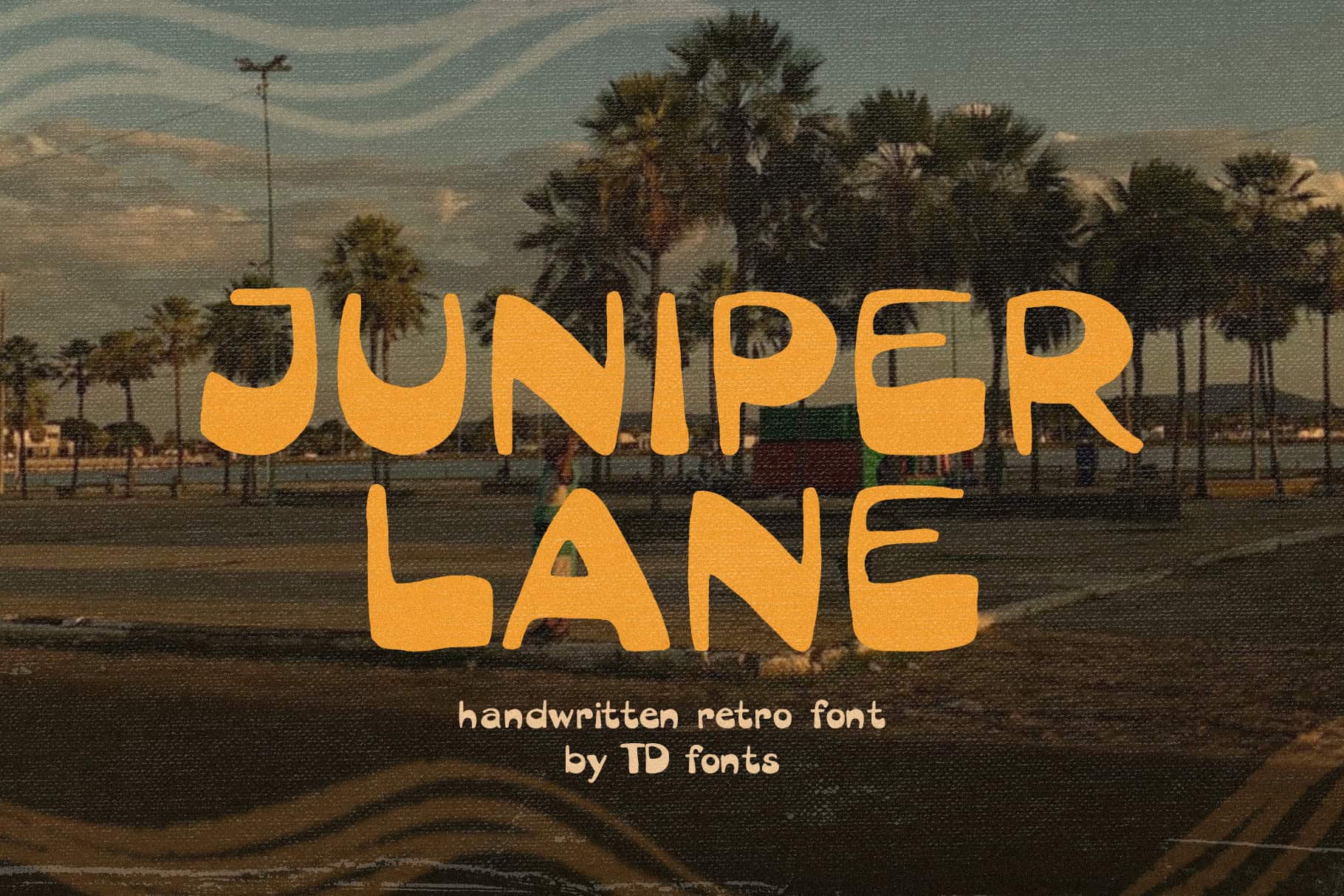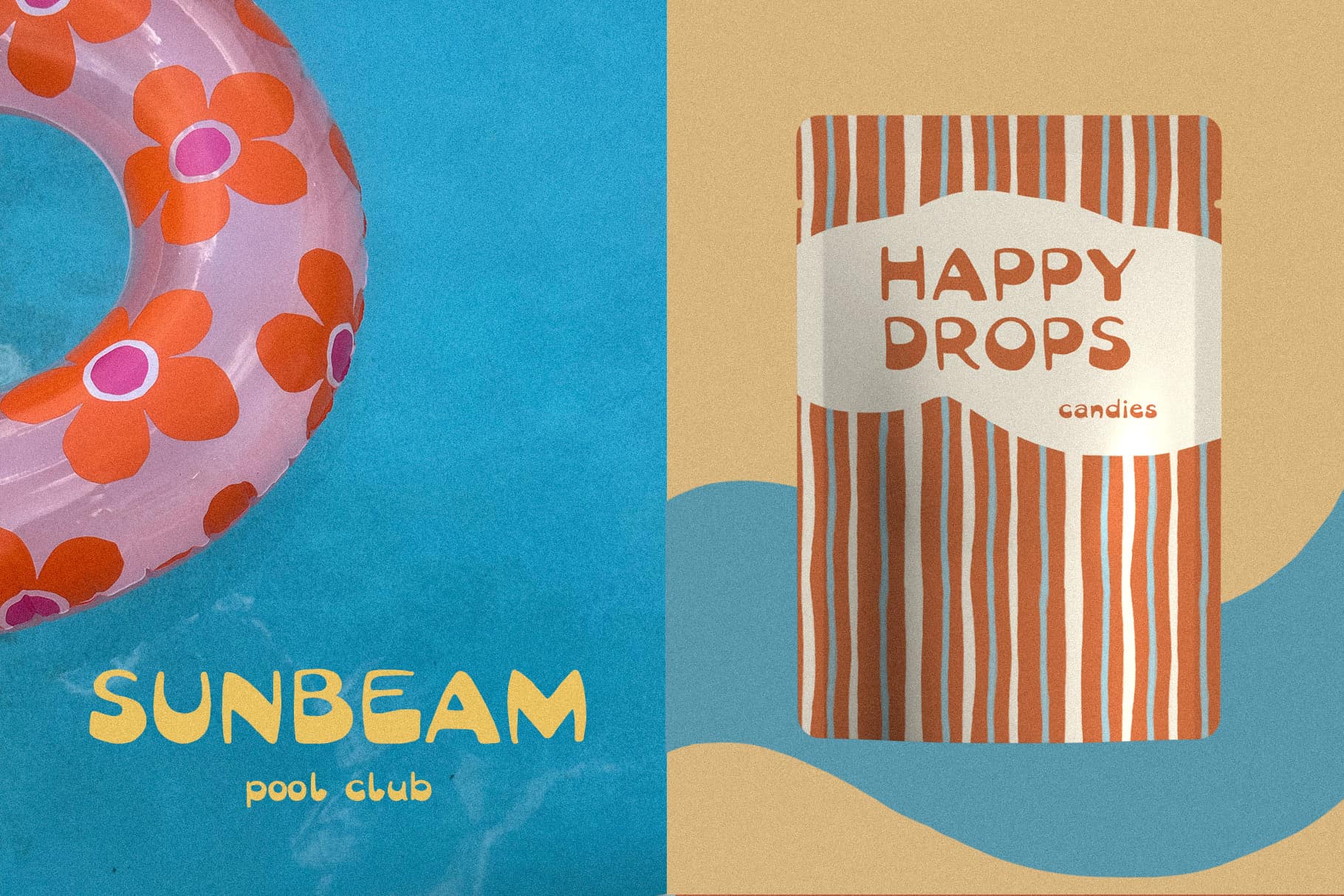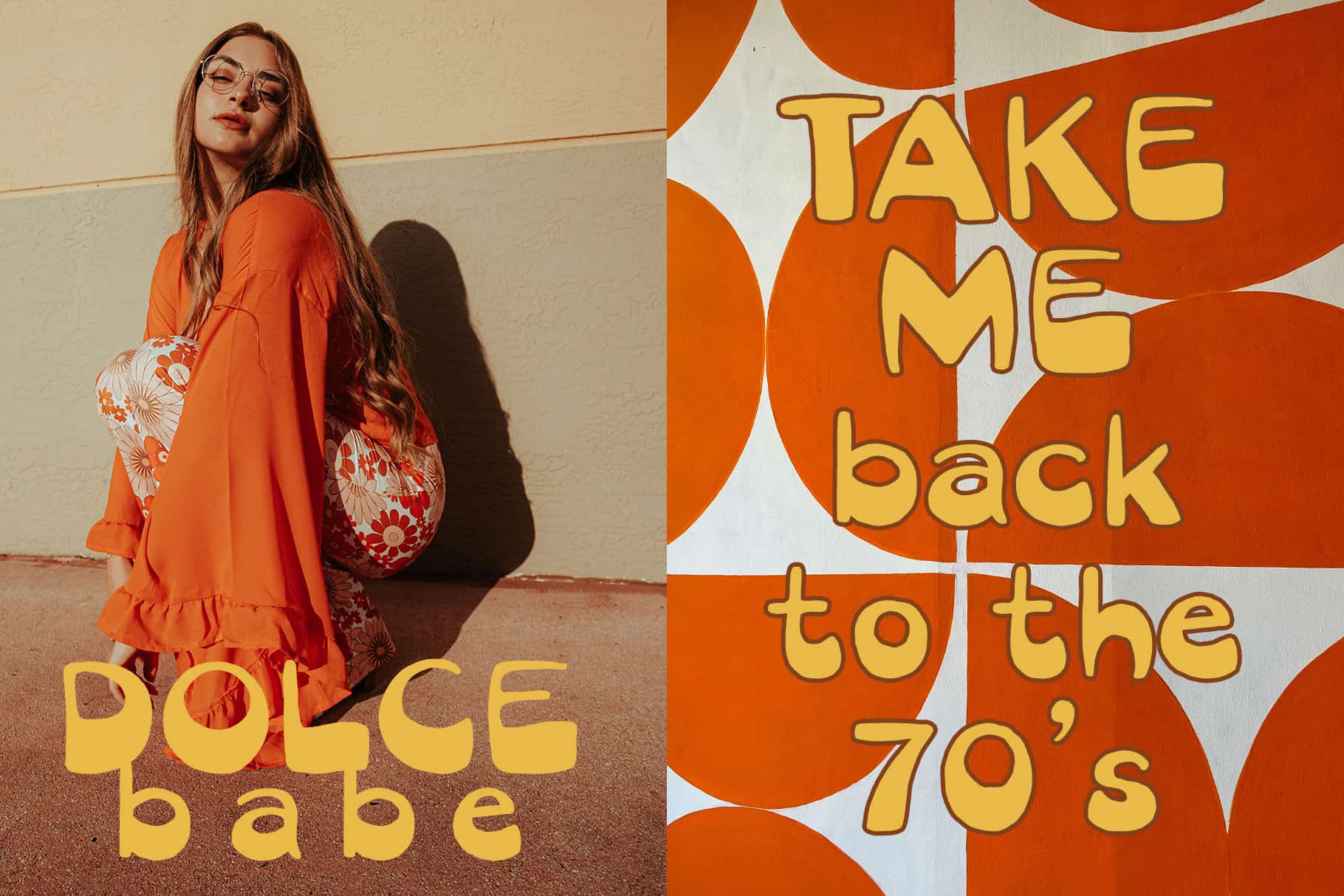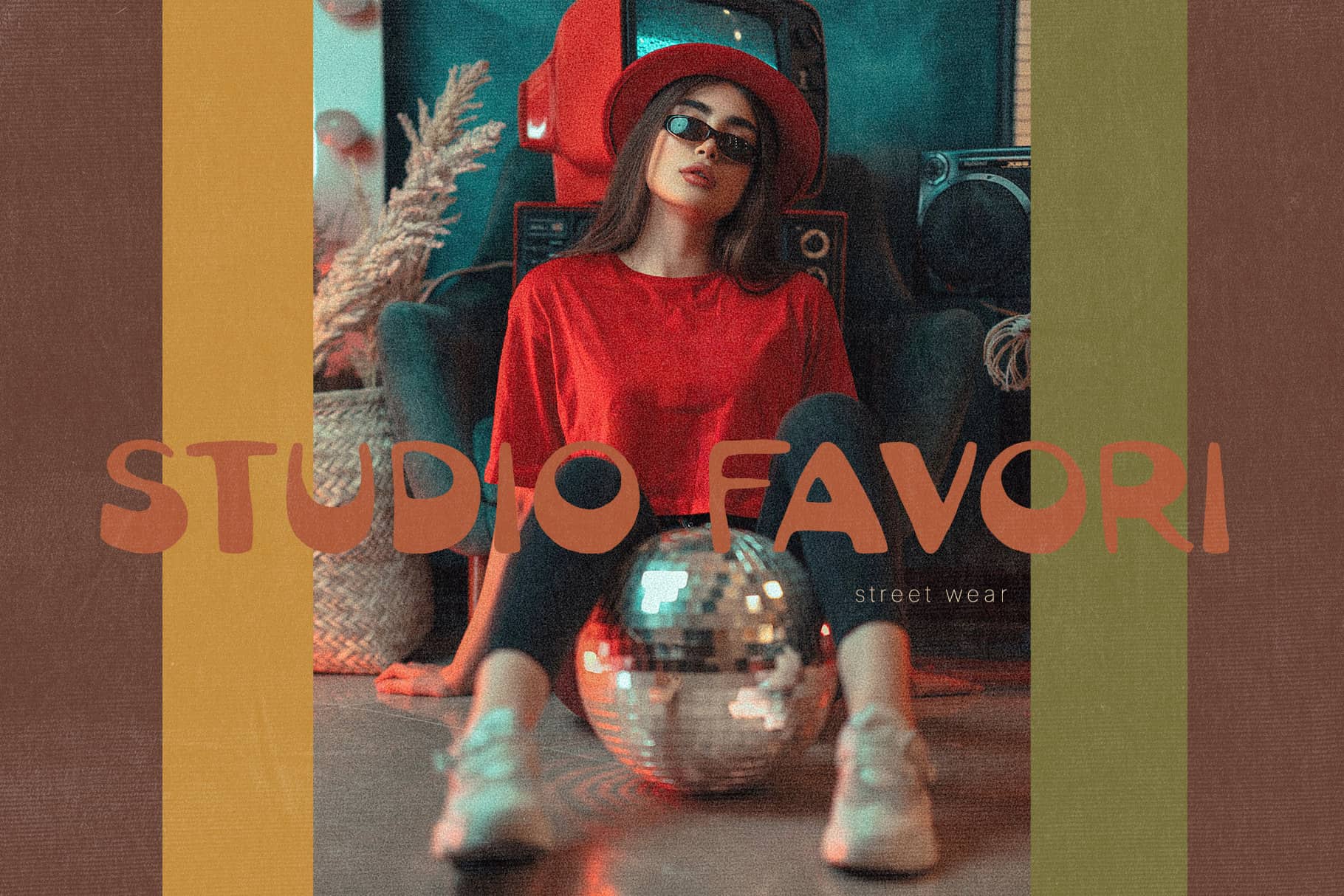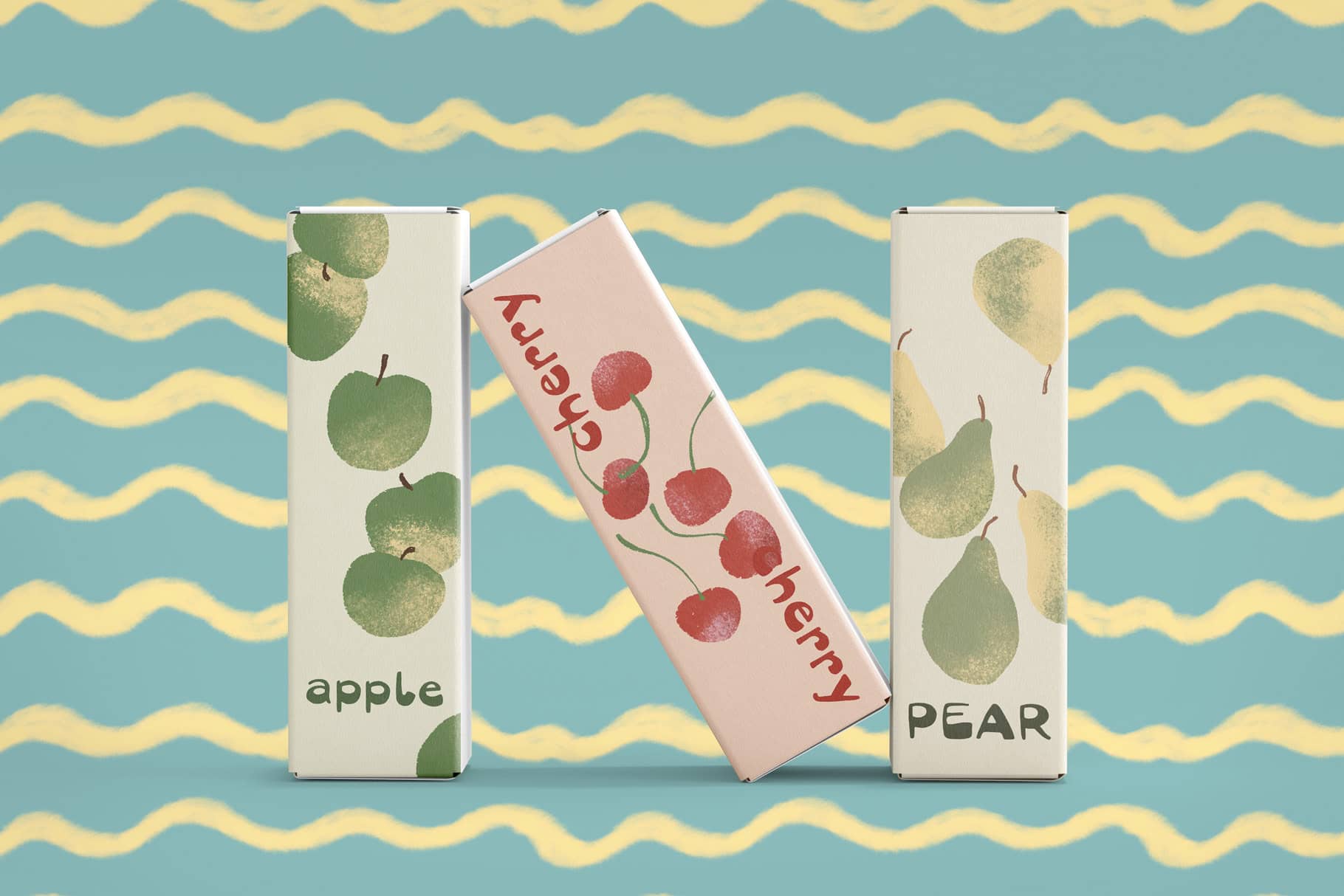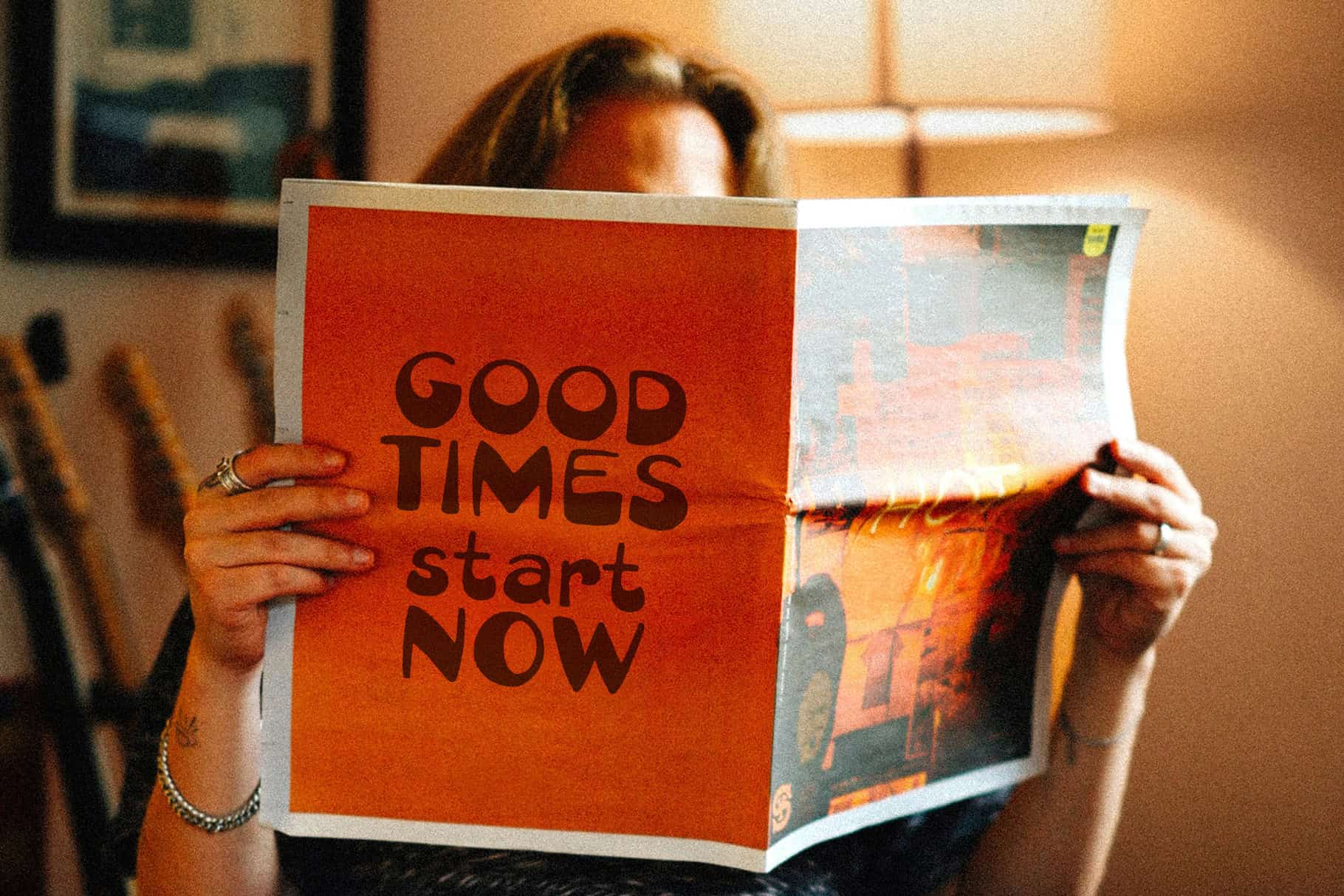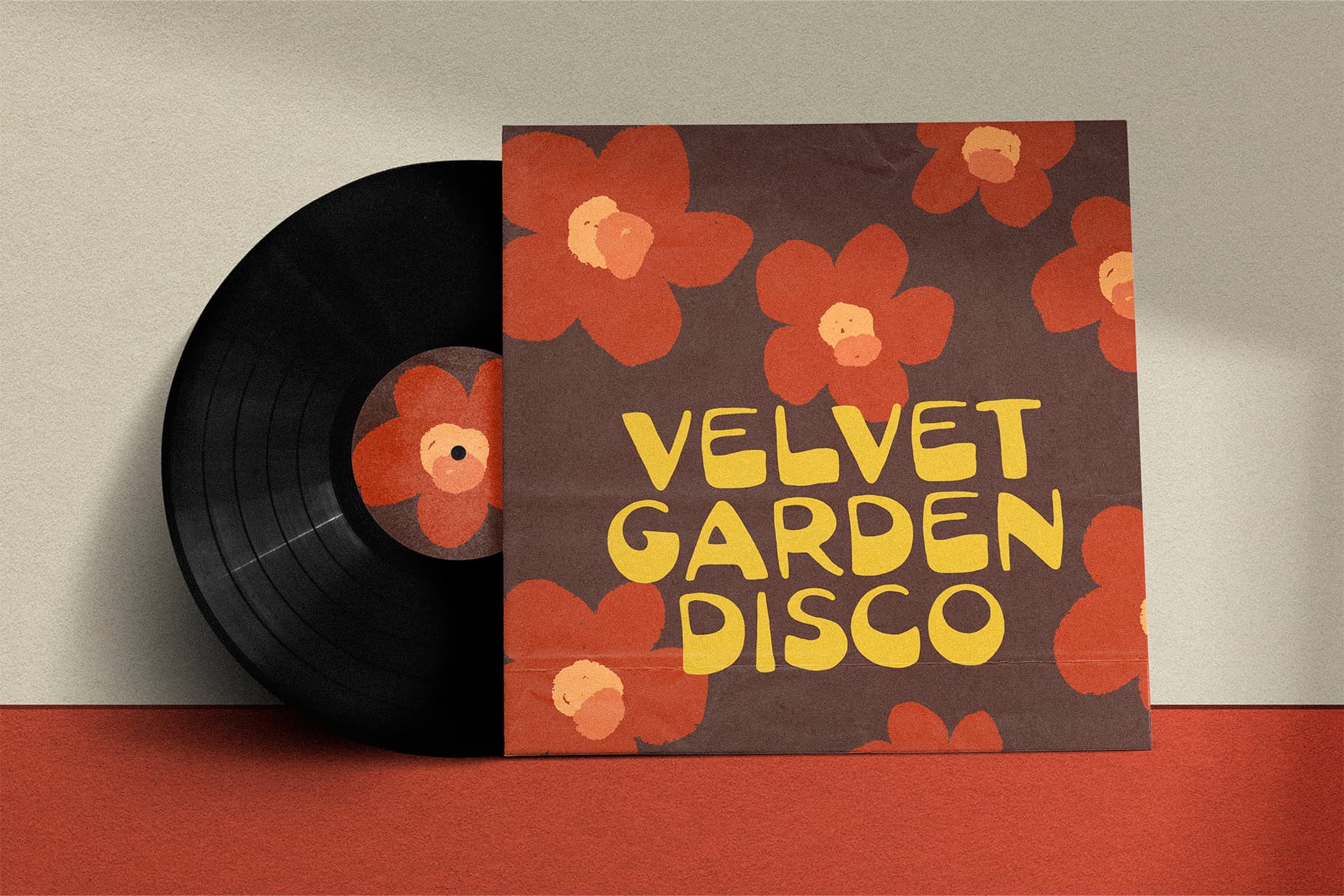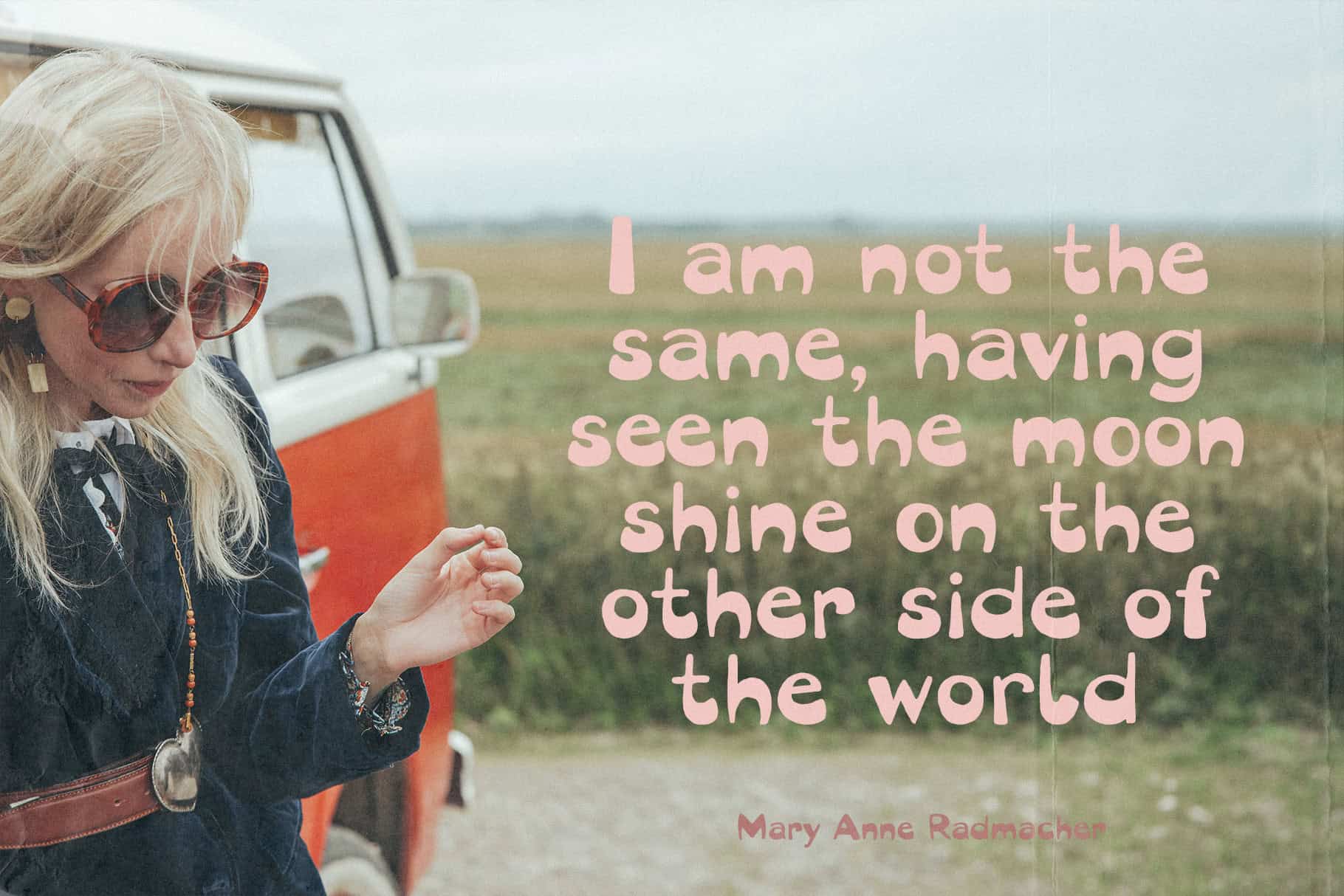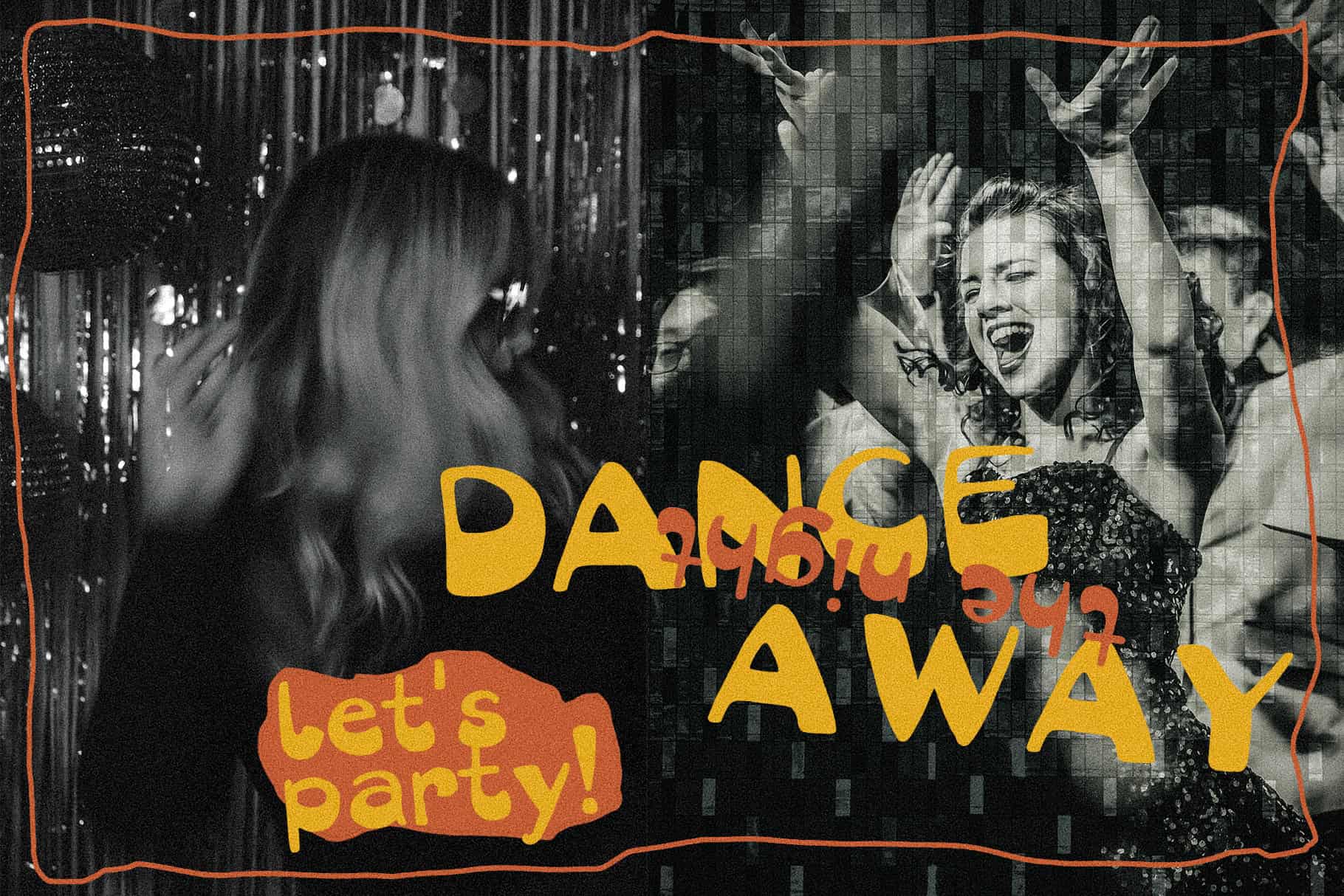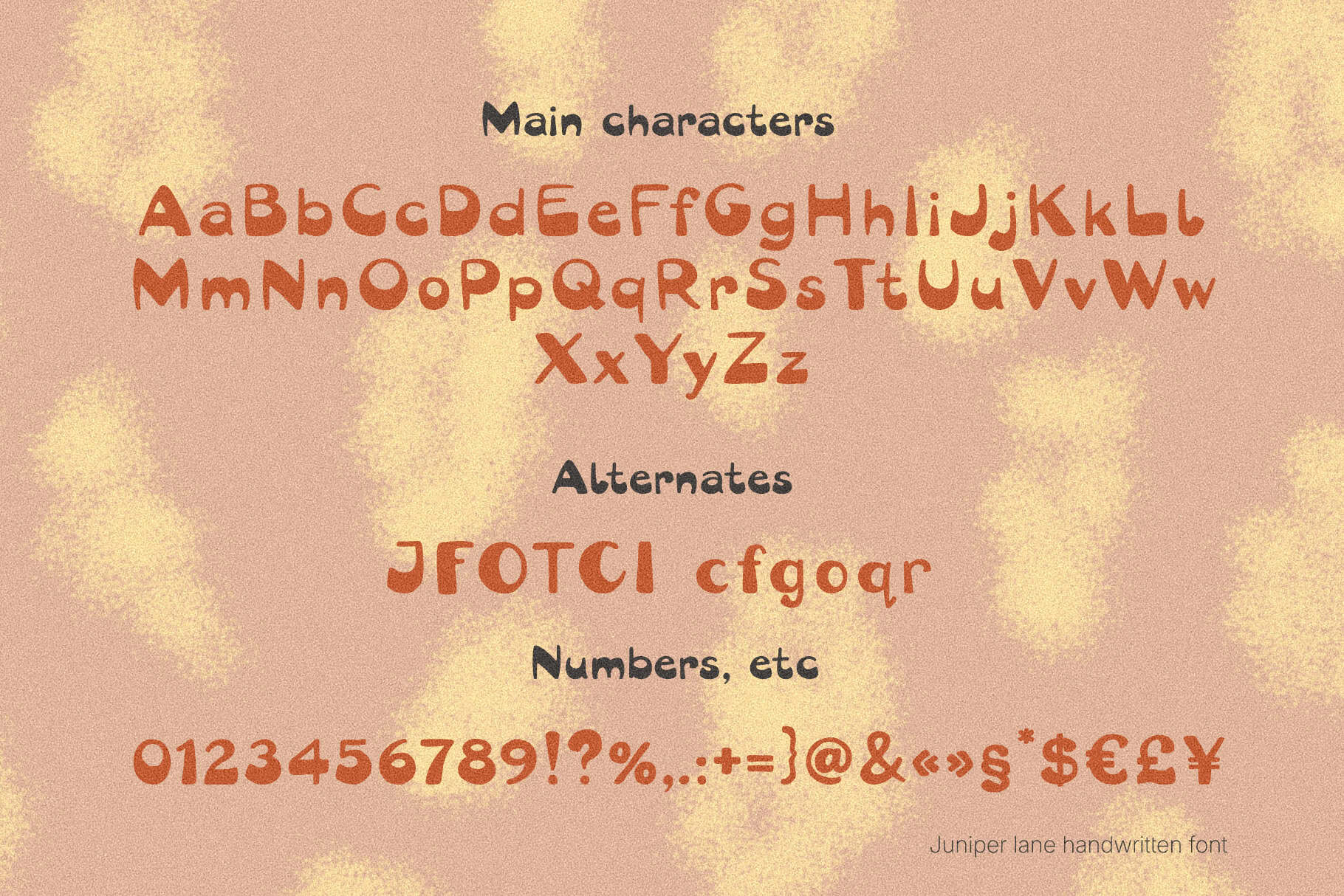
Juniper Lane Font — Retro Bubble Handwritten Vintage Display Typeface
Juniper Lane is a bold, handwritten retro bubble font inspired by rounded lettering from old book covers. With its thick, playful letterforms and warm vintage character, it’s built for logos, packaging, streetwear, and social media designs that need instant nostalgic charm
A Retro bubble font with real handwritten character
Juniper Lane is a bold display font inspired by the rounded, bubble-style lettering found on old book covers — reimagined for today’s design work. Every letter carries a soft, inflated shape with a confident, chunky weight, giving your designs an instantly recognizable vintage character without feeling dated.
Design features
Thick, rounded bubble letterforms built to command attention in headlines, logos, and packaging. Drawn entirely by hand, Juniper Lane keeps the organic imperfections that give it warmth and personality — never sterile, never generic. Stylistic alternates for J, F, O, T, C, I and lowercase c, f, g, o, r give you more control over the handmade look in every word you set.
Where this font works best
Juniper Lane fits naturally into retro and vintage branding — record labels, retro diners, vinyl covers, disco-themed events, and throwback product lines. It’s equally at home in streetwear and youth culture, from T-shirt graphics to hoodie prints and sticker packs. For indie packaging and food branding, its playful shapes suit snack bags, candy wrappers, and fruit-themed labels. It also works well for hospitality and lifestyle branding — pool clubs, boutique motels, roadside diners, and travel-inspired projects — as well as music and entertainment design, social media graphics, editorial print, and signage.
Mood & personality
Nostalgic. Playful. Confident. Juniper Lane feels like a Sunday afternoon in an old photograph — warm, unhurried, a little sun-faded, but full of character.
- Stylistic alternates for a more natural, varied hand-lettered look